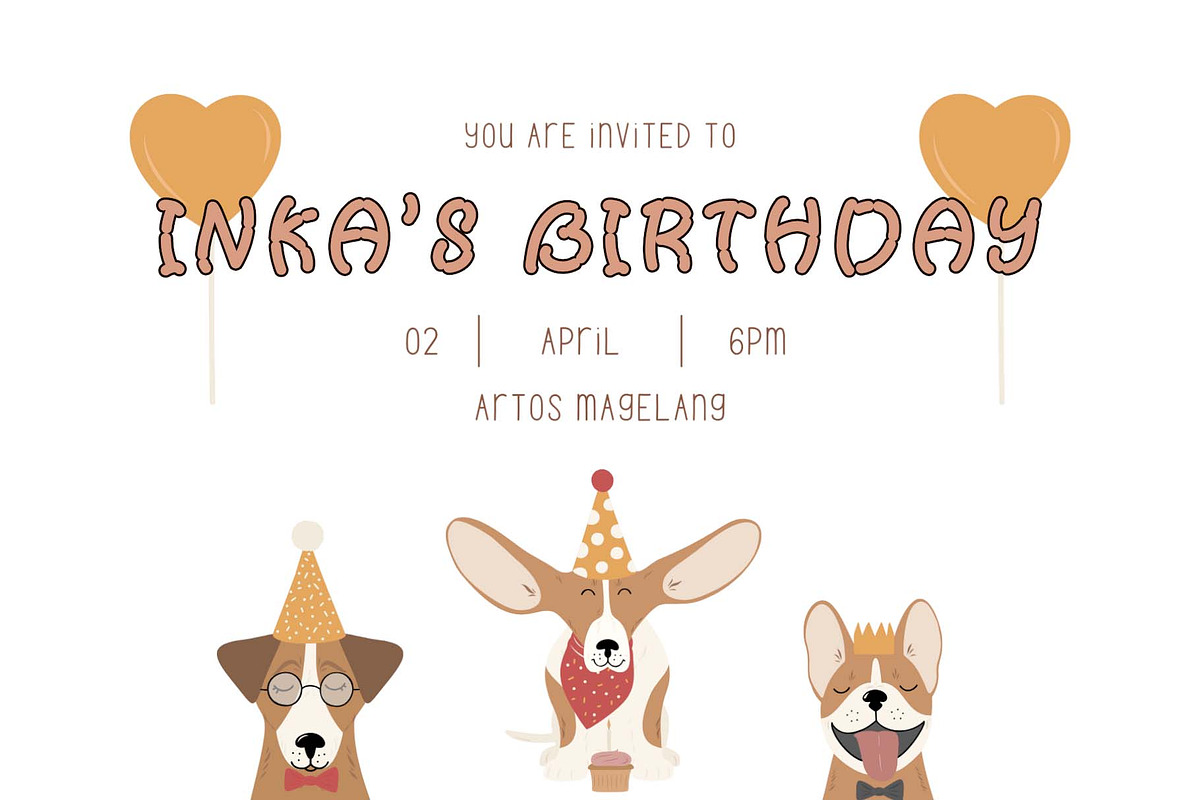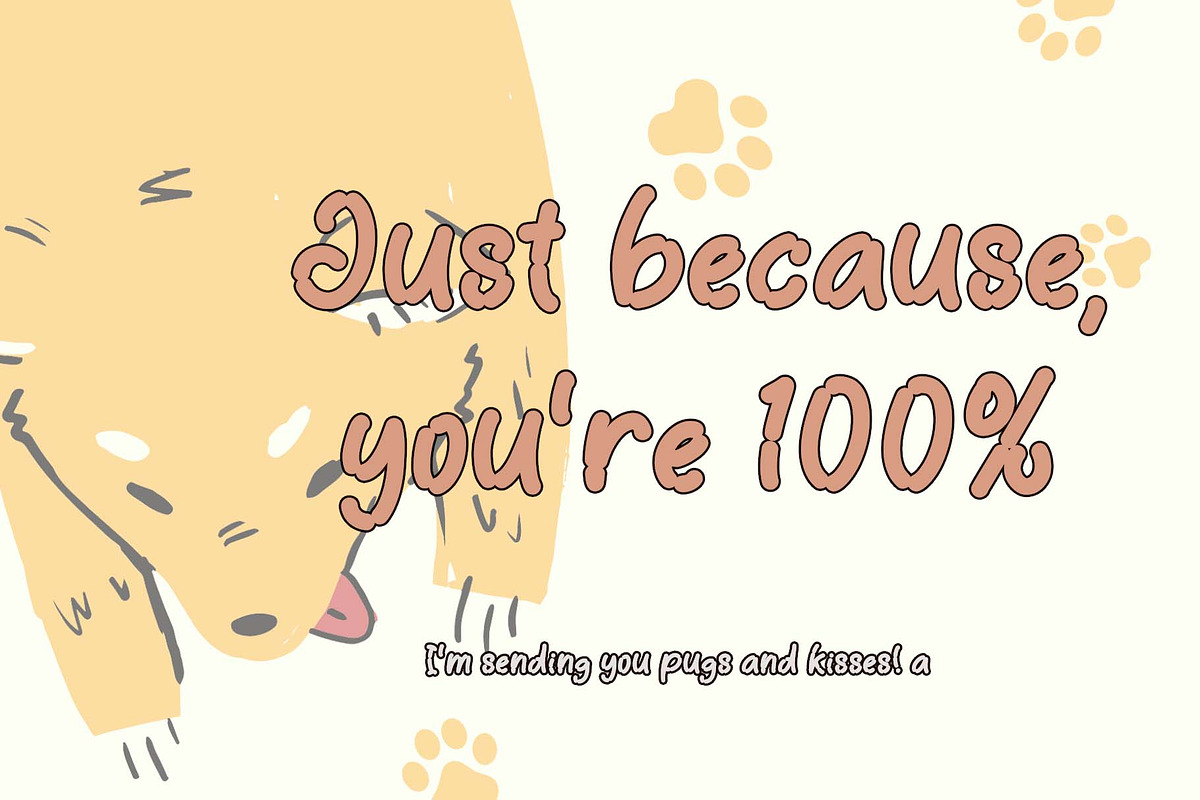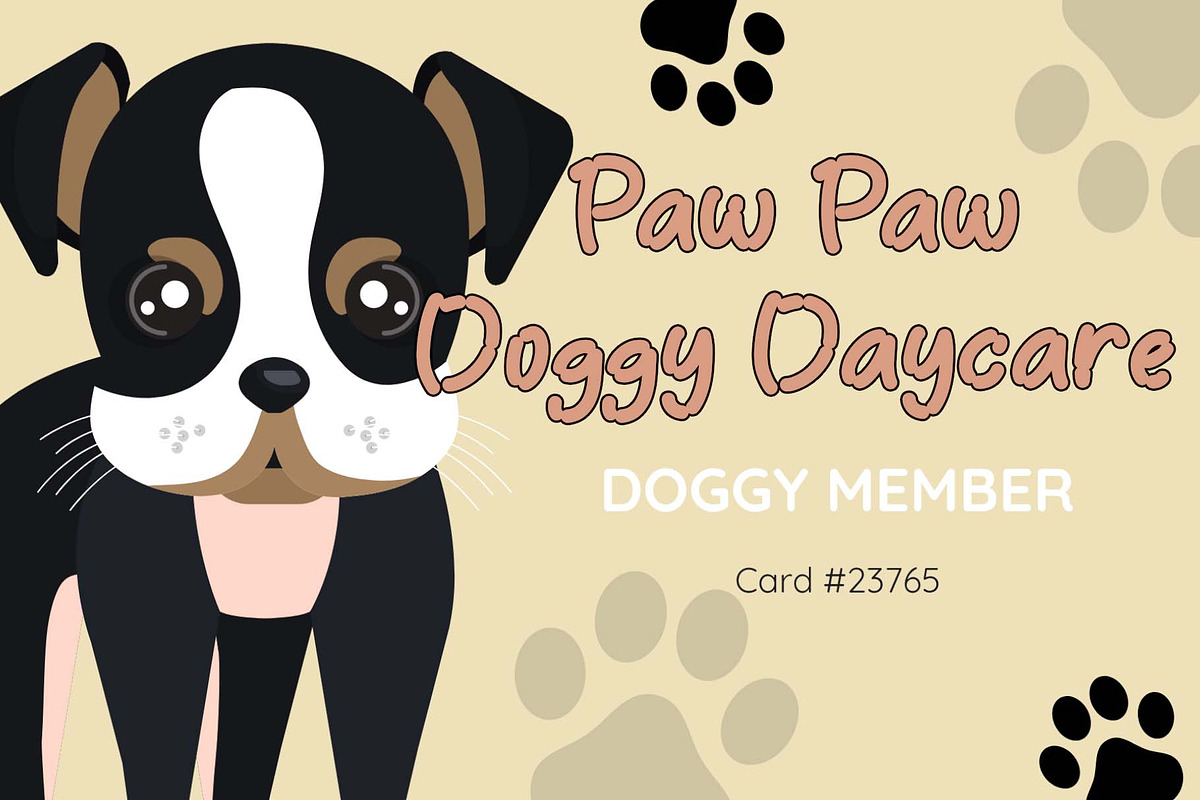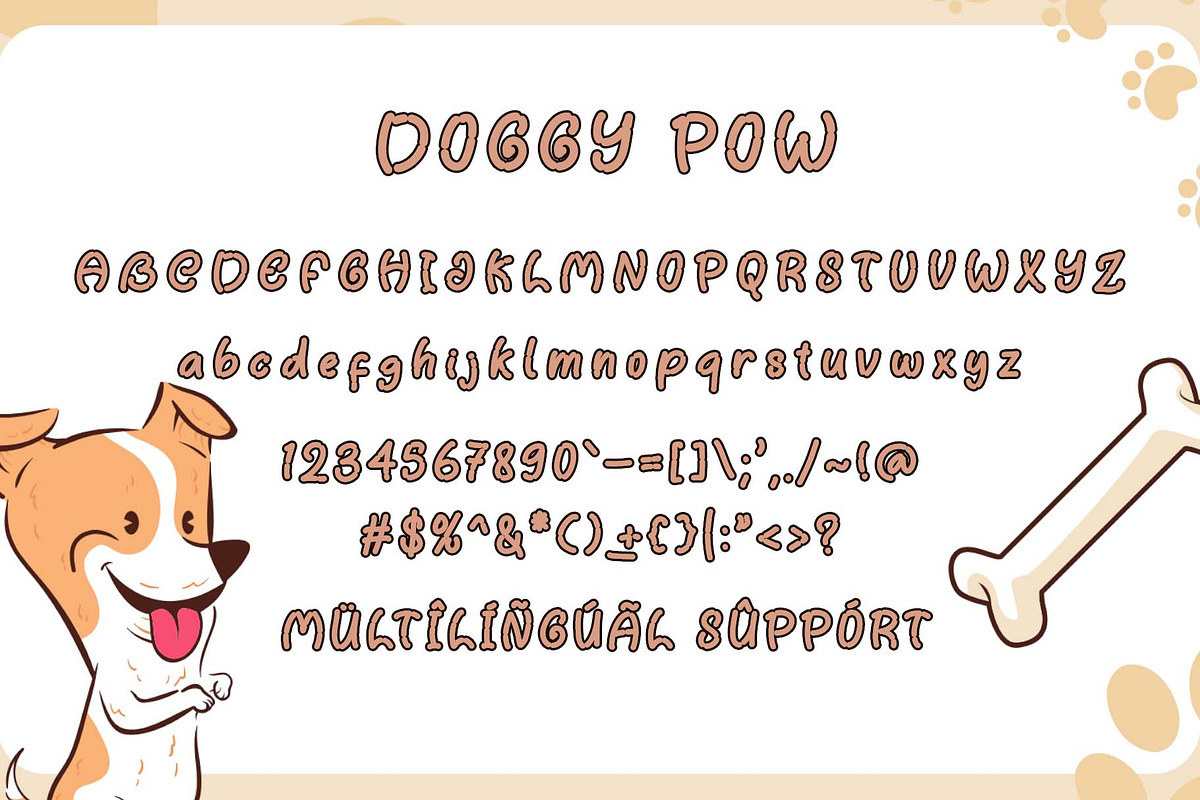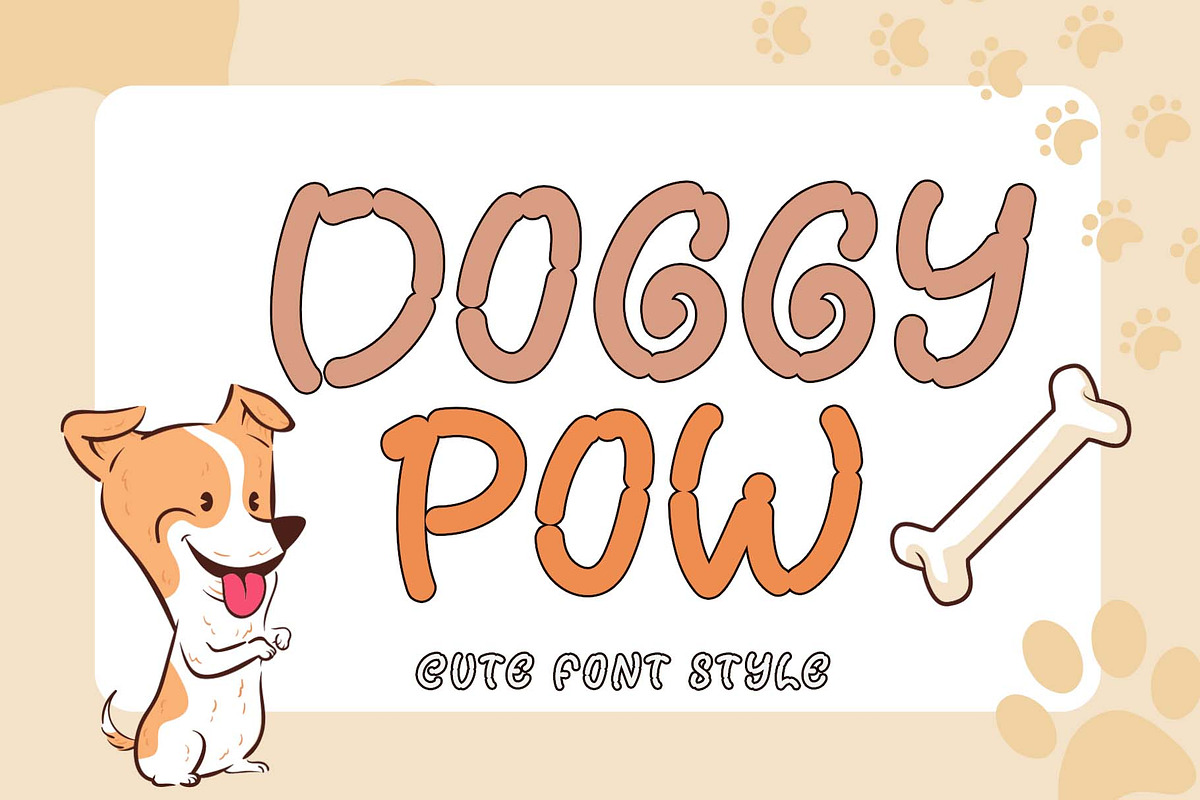
Doggy Pow
“Doggy Pow” is a cute display font. This font is equipped with uppercase, lowercase, numerals, punctuation, and multilingual support. Very suitable for Easter, banners, posters, prints, logos, stickers, comics, branding, summer, pet shop, business branding, and others.